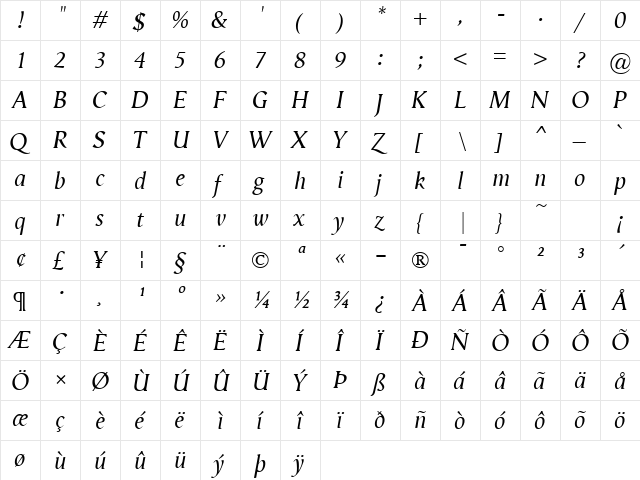
Vega antikva Italic Font Preview
Vega antikva Italic
Vega antikva Italic Font Details
Design Context for Vega antikva Typeface
Vega antikva is a composed and adaptable typeface that performs quietly and consistently across a wide range of design contexts. The slanted form adds forward momentum and visual energy.
Pro Tip: Use Vega antikva for emphasis, pull quotes, and subheadings where its slanted energy can add rhythm to the layout.